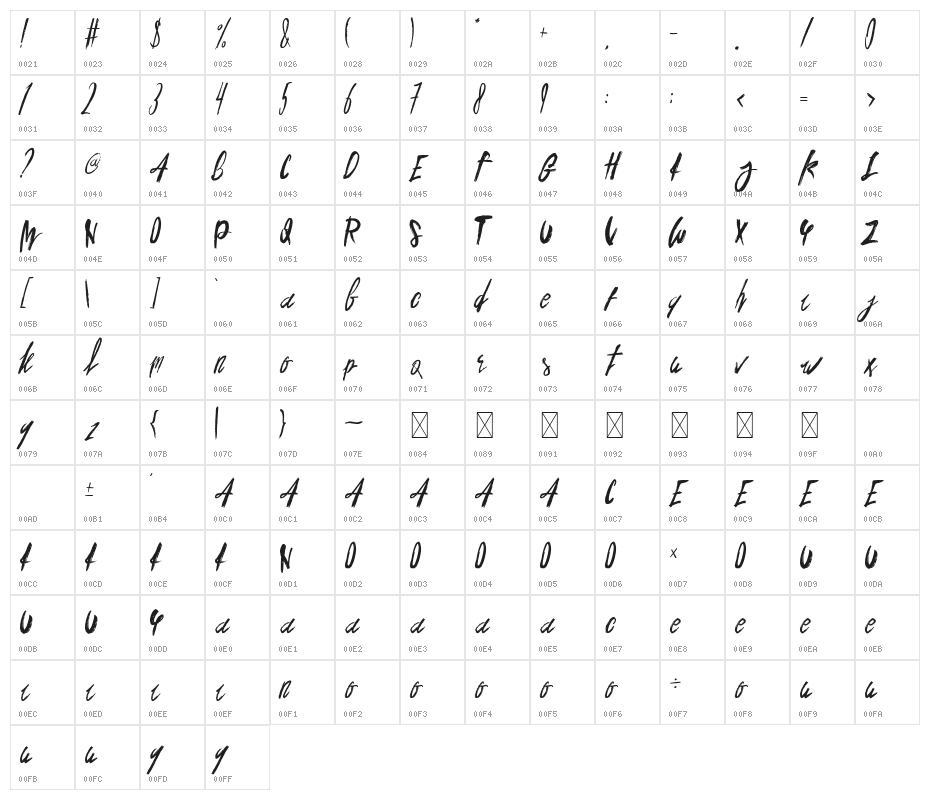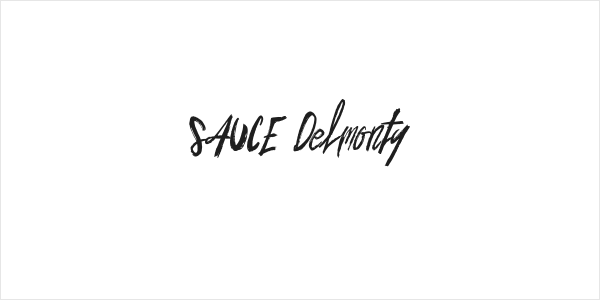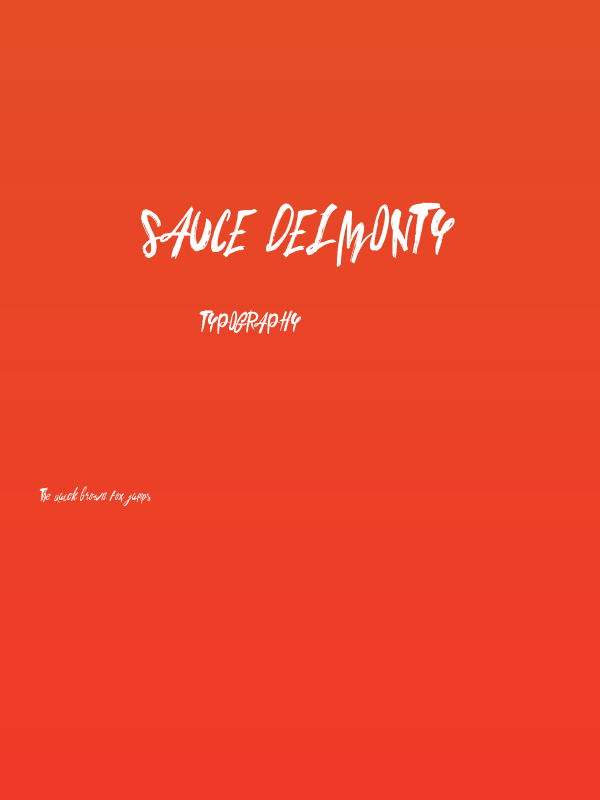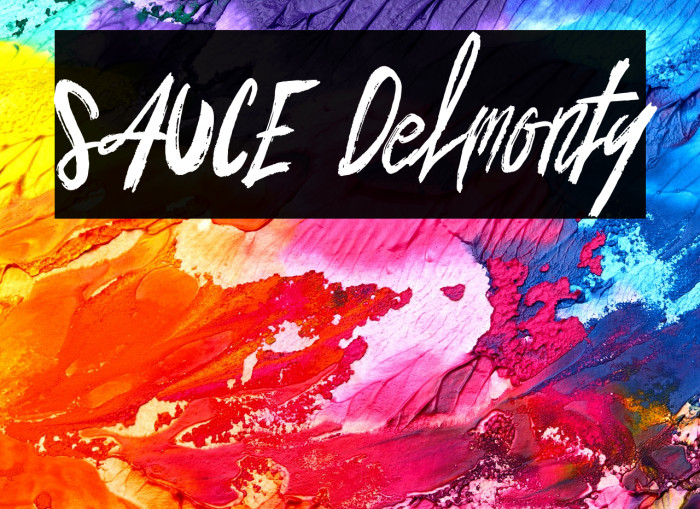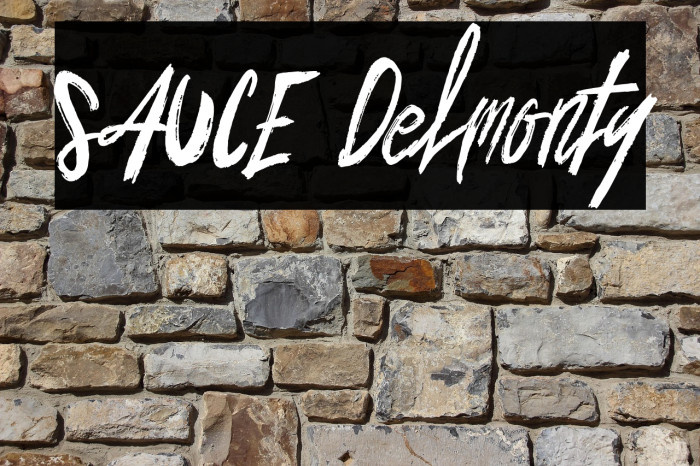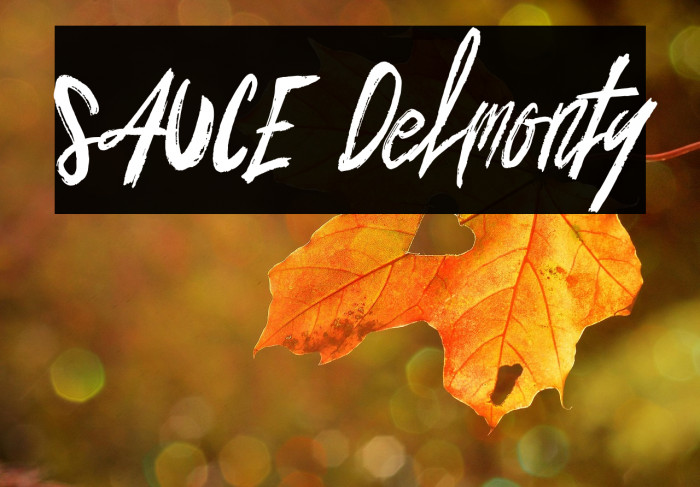
SAUCE Delmonty Font
SAUCE Delmonty Description
This font features a bold, expressive handwritten style with a dynamic and energetic flow. The characters are crafted with a brush-like texture, giving them a raw and artistic appearance. The uppercase letters are tall and slightly condensed, while the lowercase letters maintain a consistent fluidity. The numbers and special characters are designed to match the overall aesthetic, adding to the font's cohesive look. This font's unique style makes it stand out, perfect for projects that require a personal and creative touch.
| Proposed Projects | Ideal for branding, posters, invitations, and artistic projects that require a personal touch. |